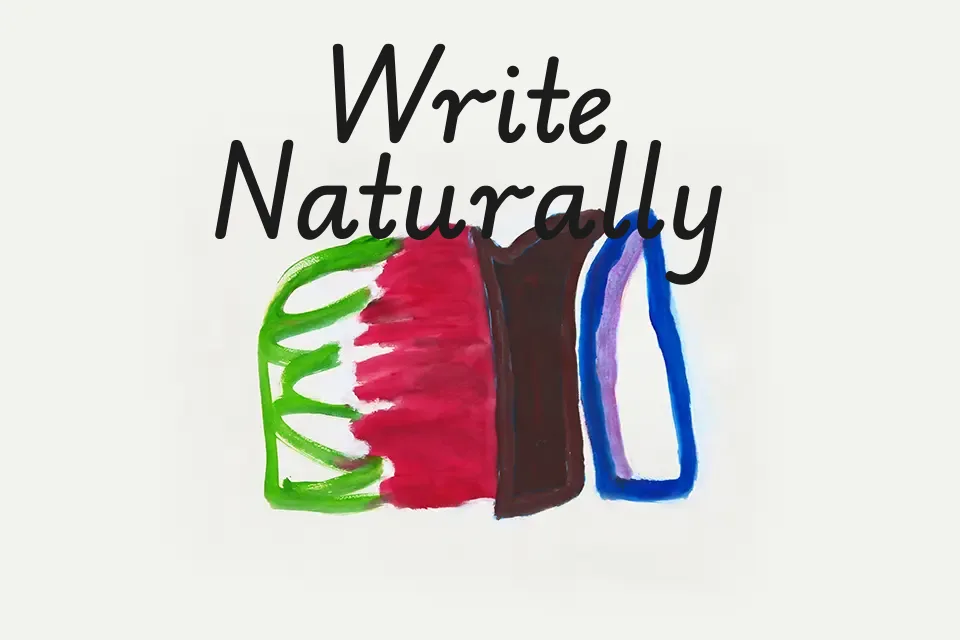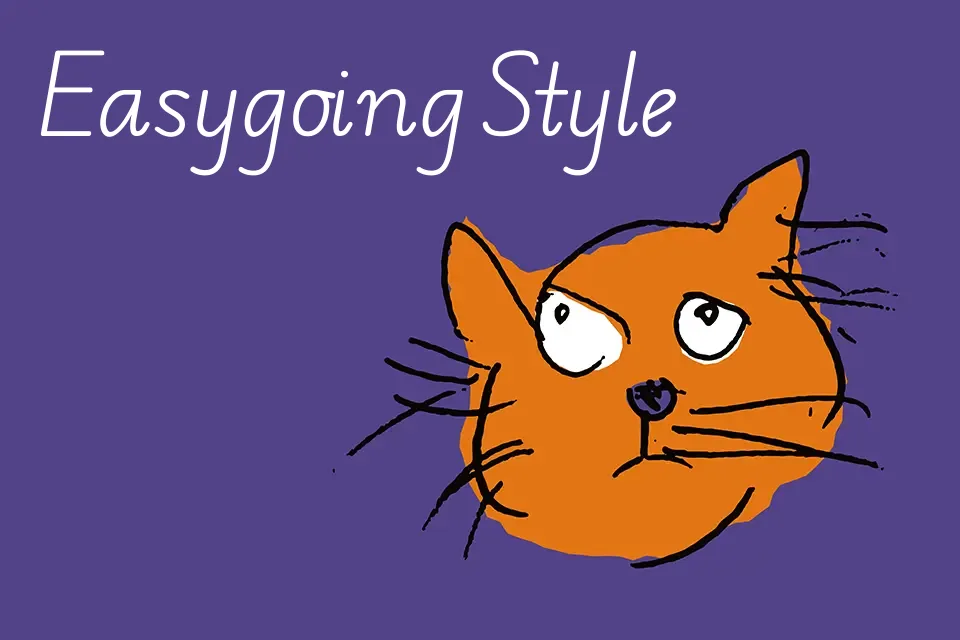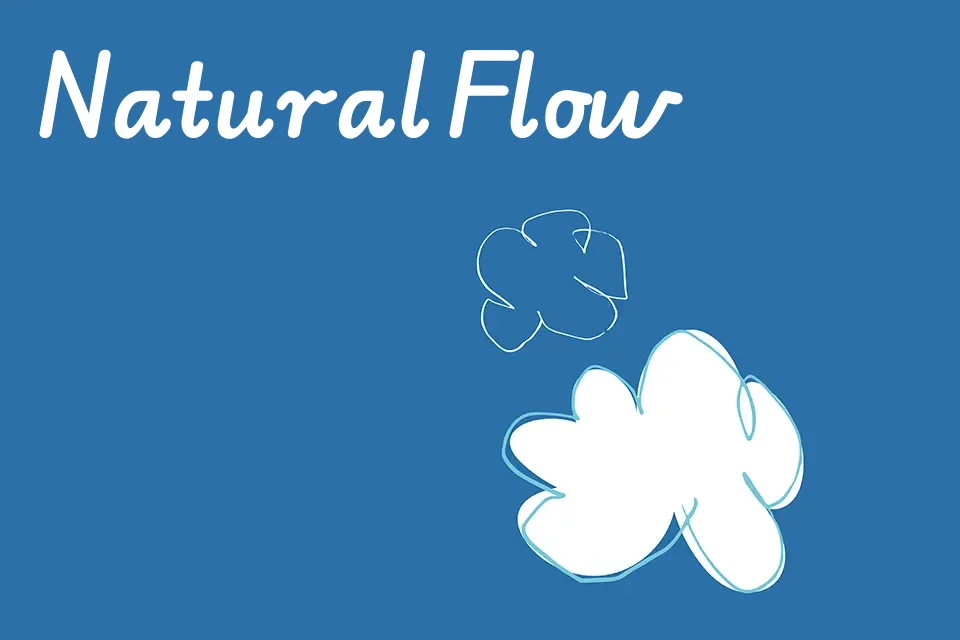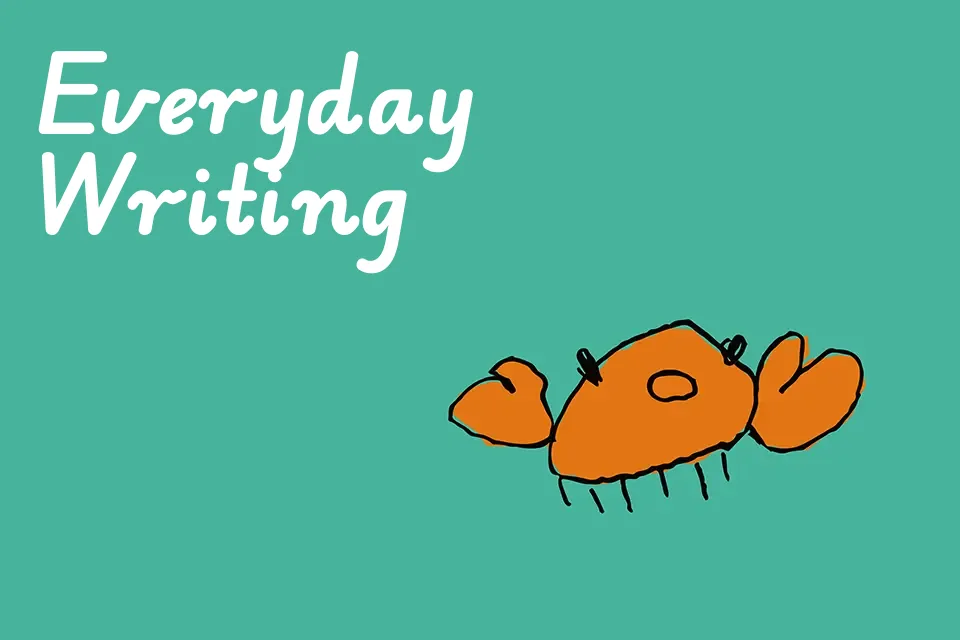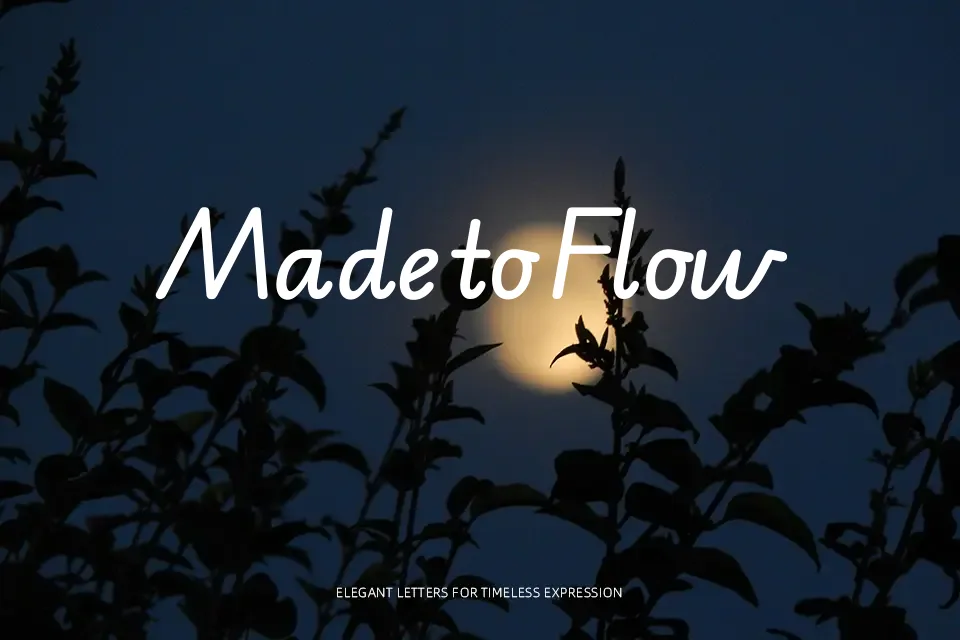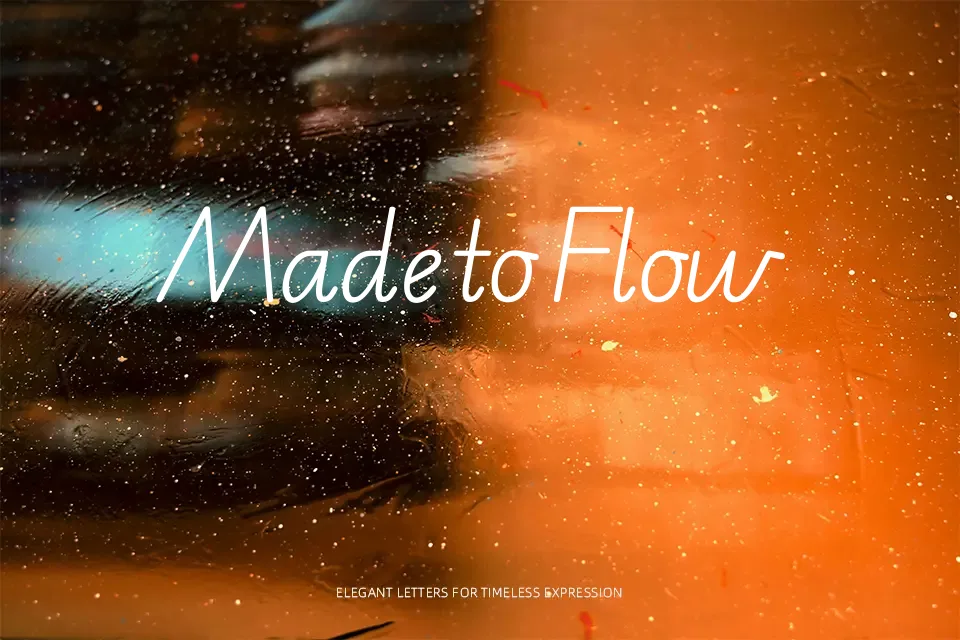
Edu VIC WA NT Hand Pre Font
Edu VIC WA NT Hand Pre is a school handwriting typeface with even strokes, open counters, and a slightly forward rhythm that feels like neat teacher handwriting on the board. Spacing is generous enough for young readers, and the regular weight keeps lines from looking heavy or cramped in print. The overall impression is informal and instructional rather than decorative, which suits learning materials, handwriting guides, and education-focused graphics more than edgy design work. It shines when you need handwriting that looks carefully practiced—think literacy posters, classroom displays, or kids’ workbooks—but feels a bit too casual for corporate reports or luxury branding.
handwriting practice sheets
classroom posters and signage
kids learning materials
school-focused branding
dense body text in books
luxury or high-end branding
motion-heavy UI interfaces
Perfect for branding, headline, and kids, with a calm and handwritten style.